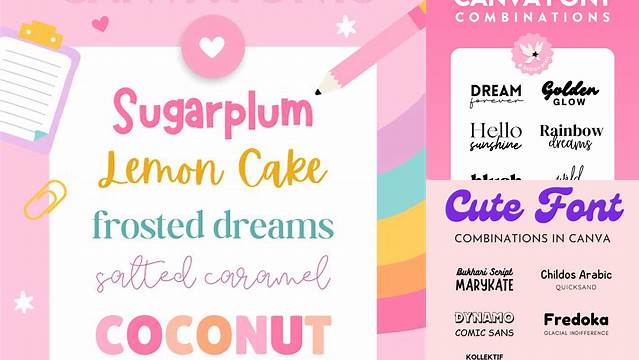
Cute Script Fonts On Canva: A Designer's Guide
Hey guys! Are you looking to add a touch of charm and personality to your designs? Well, you've come to the right place! We're diving deep into the world of cute script fonts available on Canva. Canva is a fantastic platform for all your design needs, whether you're creating social media graphics, presentations, or even invitations. And let's be honest, a well-chosen font can make all the difference. So, let's explore how you can elevate your designs with the most adorable script fonts Canva has to offer. We’ll cover everything from identifying the key characteristics of cute script fonts to providing practical examples and tips on how to use them effectively. Get ready to transform your projects from bland to brilliant with these delightful typefaces!
1. What Makes a Font "Cute"?
So, what exactly makes a font "cute"? It’s a bit subjective, but there are some common characteristics we can look for. Think about the fonts that make you smile. Often, they have rounded edges, playful loops, and a generally whimsical feel. A cute font often evokes feelings of warmth, friendliness, and approachability. Think about the font’s overall aesthetic. Does it have a handmade feel? Are the lines delicate and flowing? Does it have any unique quirks or embellishments? These are all factors that contribute to a font’s "cuteness" factor. Fonts with a slight bounce or playful slant can also be perceived as cute. It’s about creating a sense of fun and lightheartedness in your design. Consider the emotional impact you want to achieve. If you're aiming for a design that feels welcoming and cheerful, a cute font can be an excellent choice. Ultimately, the "cuteness" of a font is in the eye of the beholder, but understanding these key characteristics will help you choose fonts that align with your vision and brand.
2. Top 10 Cute Script Fonts on Canva
Canva offers a treasure trove of fonts, but narrowing down the cutest script options can be a challenge. So, let's dive into our top 10 picks! Each of these fonts brings a unique flavor of cuteness to the table, suitable for various design styles and projects. Here’s a sneak peek: Starting off, we have fonts with playful, rounded letterforms that exude a childlike wonder. Then there are the elegant scripts that combine cuteness with a touch of sophistication. And let's not forget the whimsical hand-lettered styles that add a personal touch to your designs. We'll discuss what makes each font special, highlighting its best use cases and how it can enhance your overall design aesthetic. We will also delve into how these fonts pair with other fonts in Canva's library, ensuring your designs look cohesive and professional. So, grab your virtual notepad, and let's embark on this cute font journey together!
3. Free vs. Premium Cute Script Fonts on Canva
One of the big questions when designing on Canva is whether to go for free fonts or invest in premium options. Canva offers a fantastic selection of both, and when it comes to cute script fonts, there's plenty to explore. Free fonts are a great starting point, especially if you're on a budget or just starting out with design. They provide a wide range of styles to experiment with and can be perfect for personal projects or smaller-scale designs. However, premium fonts often offer a higher level of polish and uniqueness. They may have more detailed letterforms, ligatures, and stylistic alternates, giving your designs a more professional edge. Investing in premium fonts can also ensure that you have access to fonts that are less commonly used, helping your designs stand out from the crowd. We'll compare the pros and cons of both free and premium cute script fonts, helping you make an informed decision based on your needs and budget.
4. How to Pair Cute Script Fonts with Other Fonts
Using a cute script font is just the first step – knowing how to pair it with other fonts is crucial for a polished design. The goal is to create a visual hierarchy and balance, ensuring your text is both legible and aesthetically pleasing. Think about contrast. If your script font is flowing and delicate, try pairing it with a clean, sans-serif font for headings or body text. This contrast creates visual interest and helps the script font stand out. Another tip is to consider the mood you're trying to convey. A playful script might pair well with a bold, geometric sans-serif for a fun, modern feel, while a more elegant script could be complemented by a classic serif font for a sophisticated look. We'll explore various font pairings, providing examples and tips on how to achieve harmonious typography in your Canva designs. Mastering font pairing is essential for creating visually appealing and effective designs, so let's unlock the secrets to successful font combinations.
5. Using Cute Script Fonts for Logos
Logos are the face of a brand, and choosing the right font is paramount. Cute script fonts can be a fantastic choice for logos that aim to convey friendliness, warmth, or a personal touch. Imagine a logo for a children's boutique or a handmade goods store – a cute script font can perfectly capture the brand's essence. However, there are some important considerations. Legibility is key, especially in smaller sizes. A highly decorative or intricate script might look beautiful in large headings but become difficult to read in a logo. Scalability is another factor. Your logo needs to look good on everything from business cards to billboards, so choose a font that maintains its clarity and impact at various sizes. We'll examine examples of successful logos that use cute script fonts and provide guidance on how to select and adapt a script font for your logo design. Creating a memorable and effective logo requires careful font selection, and we'll equip you with the knowledge to make the right choice.
6. Designing Invitations with Cute Script Fonts
When it comes to invitations, cute script fonts are a go-to choice for adding a touch of elegance and personality. Whether you're designing invitations for a wedding, a baby shower, or a birthday party, a well-chosen script font can set the tone for the entire event. Think about the occasion. A whimsical, playful script might be perfect for a children's party, while a more refined script would suit a formal event like a wedding. Consider the readability. While cute scripts are beautiful, ensure the text is easy to read, especially for important details like dates and times. Use a complementary font for the main body text to ensure clarity and visual balance. We'll explore various invitation design ideas using cute script fonts, providing tips on layout, color schemes, and typography. Designing invitations is an opportunity to express your creativity and style, and we'll help you create invitations that leave a lasting impression.
7. Social Media Graphics: Cute Script Fonts for Engagement
In the fast-paced world of social media, grabbing attention is crucial. Cute script fonts can be a powerful tool for creating engaging graphics that stand out from the crowd. They add a personal and approachable feel to your posts, making your content more relatable. However, it's important to use them strategically. Overusing script fonts can make your graphics look cluttered and difficult to read. Use them sparingly for headings, quotes, or accents, and pair them with a clear, legible font for the main body text. Consider your target audience and the message you want to convey. A playful script might be perfect for a brand targeting young women, while a more sophisticated script could appeal to a professional audience. We'll explore how to use cute script fonts effectively in social media graphics, providing examples and tips on creating visually appealing and shareable content. Social media is a visual medium, and we'll help you make your graphics shine with the right font choices.
8. Website Design: Adding Personality with Cute Script Fonts
Your website is your online storefront, and the fonts you choose play a significant role in shaping your brand's identity. Cute script fonts can add personality and warmth to your website, making it more inviting and memorable. However, it's essential to use them judiciously. Readability is paramount on the web, so avoid using script fonts for large blocks of text. Instead, use them for headings, logos, or call-to-action buttons to add a touch of flair. Consider your brand's overall aesthetic. If you're aiming for a modern, minimalist design, a subtle script font can add a touch of elegance without overwhelming the clean lines. We'll explore how to incorporate cute script fonts into your website design, providing examples and tips on creating a visually appealing and user-friendly online presence. Your website is an extension of your brand, and we'll help you make a lasting impression with the right font choices.
9. Cute Script Fonts for Branding: Dos and Don'ts
Branding is all about creating a consistent and recognizable identity, and fonts play a crucial role in this process. Cute script fonts can be a fantastic choice for brands that want to convey friendliness, creativity, or a personal touch. However, there are some important dos and don'ts to keep in mind. Do consider your target audience and brand values. A cute script might be perfect for a bakery or a children's clothing store but might not be suitable for a law firm or a financial institution. Don't overuse script fonts. They can be beautiful, but too much can make your brand look unprofessional or cluttered. Do ensure readability, especially in smaller sizes. A script font that looks great in a large heading might become illegible on a business card. We'll delve into the dos and don'ts of using cute script fonts for branding, providing guidance on creating a cohesive and effective brand identity. Your brand is your reputation, and we'll help you build a strong and memorable one with the right font choices.
10. Designing Print Materials with Cute Script Fonts
From business cards to brochures, print materials are a tangible representation of your brand. Cute script fonts can add a touch of personality and elegance to your printed designs, making them more memorable and engaging. However, there are some specific considerations for print design. Resolution is crucial. Ensure your fonts are high-resolution to avoid pixelation or blurriness when printed. White space is also important. Don't overcrowd your design with text; leave plenty of breathing room to make it visually appealing. We'll explore how to use cute script fonts effectively in print materials, providing tips on layout, color schemes, and typography for various print formats. Print design is a tactile experience, and we'll help you create materials that feel as good as they look.
11. The Psychology of Cute Script Fonts
Fonts aren't just visual elements; they also evoke emotions and associations. Cute script fonts, in particular, often convey feelings of warmth, friendliness, and playfulness. They can make your designs feel more approachable and personal, which is why they're often used in branding for businesses targeting families, children, or creative individuals. The psychology of fonts is a fascinating field, and understanding the emotional impact of different typefaces can significantly enhance your design work. A cute script font can create a sense of nostalgia, reminding viewers of handwritten letters or childhood memories. It can also convey a sense of authenticity and handcrafted quality, making your brand feel more genuine and trustworthy. We'll delve deeper into the psychology of cute script fonts, exploring how they influence perception and how you can use them strategically to achieve your design goals. Knowing the emotional impact of fonts is a powerful tool, and we'll help you harness it to create designs that resonate with your audience.
12. Combining Cute Script Fonts with Images
Images and typography work together to create a cohesive visual message. When using cute script fonts, it's important to choose images that complement the font's style and mood. For instance, a whimsical script font might pair well with soft, pastel-colored images or illustrations. An elegant script font, on the other hand, could be complemented by sophisticated photographs or minimalist graphics. Think about the overall tone you want to create. If you're aiming for a lighthearted and playful design, choose images that reflect that mood. If you're going for a more refined look, opt for images that are clean, crisp, and sophisticated. We'll explore how to combine cute script fonts with various types of images, providing examples and tips on creating visually harmonious designs. The interplay between images and typography is a key element of effective design, and we'll help you master the art of visual storytelling.
13. Cute Script Fonts for Seasonal Designs
Seasonal designs offer a wonderful opportunity to play with different fonts and styles. Cute script fonts can add a festive touch to your designs, making them perfect for holiday greetings, seasonal promotions, and special events. For instance, a whimsical script font might be ideal for Christmas cards or Halloween invitations. A more elegant script font could be used for Valentine's Day promotions or New Year's Eve announcements. Think about the mood of each season. Spring designs might benefit from light, airy script fonts that evoke feelings of freshness and renewal. Autumn designs could incorporate warmer, more rustic script fonts that capture the cozy atmosphere of the season. We'll explore how to use cute script fonts in seasonal designs, providing examples and tips on creating visually appealing and timely graphics. Seasonal designs are a great way to showcase your creativity, and we'll help you make the most of every season with the right font choices.
14. Creating a Cute and Professional Look with Script Fonts
Balancing cuteness with professionalism can be a challenge, but it's definitely achievable with the right script font. The key is to choose a font that's both visually appealing and legible, and to use it strategically in your design. Avoid overly decorative or intricate scripts that might be difficult to read, especially in smaller sizes. Opt for script fonts that have a clean, modern feel, and pair them with simple, sans-serif fonts for the main body text. Consider the context in which the font will be used. A cute script font might be perfect for a website or social media graphics, but it might not be appropriate for a formal document or a business presentation. We'll explore how to create a cute and professional look with script fonts, providing examples and tips on achieving the right balance. Combining cuteness with professionalism is about finding the sweet spot, and we'll help you master this delicate art.
15. Mastering the Art of Kerning with Cute Script Fonts
Kerning, the adjustment of spacing between individual letters, is a crucial aspect of typography. It's especially important when working with script fonts, as the flowing, connected letterforms can sometimes create awkward gaps or overlaps. Mastering the art of kerning can significantly improve the readability and visual appeal of your designs. Pay close attention to the spaces between letters, and adjust them manually if necessary to achieve a balanced and harmonious look. Some design software, including Canva, offers kerning tools that allow you to fine-tune the spacing between letters. Experiment with different kerning settings to see what works best for your chosen font and design. We'll explore the art of kerning with cute script fonts, providing examples and tips on achieving perfect letter spacing. Kerning is a subtle but powerful technique that can elevate your typography from good to great.
16. Understanding Font Licensing for Cute Script Fonts on Canva
Font licensing is an important aspect of design that's often overlooked. When using fonts in your designs, it's crucial to understand the terms of the license and ensure that you're using the font in compliance with those terms. Canva offers a variety of fonts, each with its own licensing agreement. Some fonts are free for both personal and commercial use, while others may have restrictions on how they can be used. It's essential to check the licensing information for each font before using it in your designs, especially if you plan to use the designs for commercial purposes. We'll explore font licensing for cute script fonts on Canva, providing guidance on understanding and complying with licensing agreements. Font licensing can be a complex topic, but we'll break it down and make it easy to understand.
17. The History of Script Fonts: A Brief Overview
Script fonts have a rich and fascinating history, dating back to the early days of handwriting and calligraphy. Understanding the history of script fonts can give you a deeper appreciation for their beauty and versatility. Script fonts originated from the flowing, cursive styles of handwriting that were popular in past centuries. They were often used for formal documents, letters, and invitations, conveying a sense of elegance and sophistication. Over time, script fonts evolved into a wide variety of styles, from traditional calligraphy-inspired scripts to modern, playful scripts. Each style has its own unique character and personality. We'll provide a brief overview of the history of script fonts, tracing their evolution and highlighting key milestones in their development. Knowing the history of script fonts can inform your design choices and help you use them effectively.
18. Future Trends in Cute Script Font Design
Font design is a constantly evolving field, with new trends emerging all the time. Staying up-to-date on the latest trends in cute script font design can help you create fresh, modern designs that stand out. We're seeing a growing trend towards hand-drawn, organic-looking script fonts that have a personal, authentic feel. These fonts often incorporate imperfections and irregularities that add to their charm. Another trend is the use of bold, expressive script fonts that make a strong visual statement. These fonts are perfect for headlines, logos, and other design elements that need to grab attention. We'll explore future trends in cute script font design, providing insights into what's on the horizon and how you can incorporate these trends into your work. Staying ahead of the curve is essential in the design world, and we'll help you do just that.
19. How to Create Your Own Cute Script Font
For designers who want to take their creativity to the next level, creating their own cute script font can be a rewarding experience. It allows you to express your unique style and create a font that's perfectly tailored to your needs. Creating a font is a complex process, but it's also incredibly satisfying. It involves designing each letterform, number, and punctuation mark, and then assembling them into a functional font file. There are various software tools available that can help you create your own font, including FontLab Studio, Glyphs, and Calligraphr. We'll provide an overview of the process of creating your own cute script font, highlighting key steps and resources that can help you get started. Creating your own font is a challenging but rewarding endeavor that can set your designs apart.
20. The Impact of Cute Script Fonts on Brand Perception
Fonts play a significant role in shaping brand perception. Cute script fonts, in particular, can have a powerful impact on how your brand is perceived by your target audience. A cute script font can convey a sense of friendliness, warmth, and playfulness, making your brand feel more approachable and relatable. It can also create a sense of nostalgia or handcrafted quality, making your brand feel more genuine and trustworthy. However, it's important to use cute script fonts strategically, as they may not be appropriate for all brands. A law firm or a financial institution, for instance, might prefer a more formal, professional font. We'll explore the impact of cute script fonts on brand perception, providing insights into how they can influence customer attitudes and behaviors. Understanding the psychology of fonts is crucial for effective branding, and we'll help you make informed font choices.
21. Cute Script Fonts vs. Other Font Styles
Cute script fonts are just one of many font styles available to designers. Understanding the differences between script fonts and other font styles, such as serif, sans-serif, and display fonts, can help you make informed font choices for your designs. Serif fonts have small decorative strokes at the ends of the letters, giving them a classic, traditional feel. Sans-serif fonts, on the other hand, have clean, simple lines, making them look modern and minimalist. Display fonts are designed for headlines and other large-format text, and they often have unique, eye-catching designs. We'll compare cute script fonts to other font styles, highlighting their strengths and weaknesses and providing guidance on when to use each style. Each font style has its own unique character and personality, and knowing the differences can help you create visually compelling designs.
22. Common Mistakes to Avoid When Using Cute Script Fonts
Using cute script fonts effectively requires careful attention to detail. There are several common mistakes that designers often make when working with script fonts, but avoiding these pitfalls can significantly improve your designs. One common mistake is overusing script fonts. While they can be beautiful, too much script font can make your design look cluttered and difficult to read. Another mistake is choosing a script font that's too decorative or intricate, making it illegible in smaller sizes. We'll explore common mistakes to avoid when using cute script fonts, providing practical tips on how to create visually appealing and effective designs. Learning from others' mistakes is a valuable way to improve your design skills.
23. Resources for Finding More Cute Script Fonts on Canva
Canva offers a vast library of fonts, but finding the perfect cute script font can sometimes feel like searching for a needle in a haystack. Fortunately, there are several resources that can help you narrow down your search and discover hidden gems. Canva's font filters allow you to sort fonts by style, weight, and other criteria, making it easier to find script fonts that match your needs. You can also browse Canva's font collections, which are curated sets of fonts that work well together. We'll provide a list of resources for finding more cute script fonts on Canva, helping you expand your font library and discover new favorites. The more fonts you have at your disposal, the more creative you can be with your designs.
24. Cute Script Fonts and Accessibility: Best Practices
Accessibility is an important consideration in design, ensuring that your designs are usable by people with disabilities. When using cute script fonts, it's essential to follow best practices for accessibility to ensure that your text is legible and understandable. Avoid using script fonts for large blocks of text, as they can be difficult for some people to read. Instead, use them sparingly for headlines or accents, and pair them with a clear, sans-serif font for the main body text. Ensure that there's sufficient contrast between the text and the background, and avoid using script fonts that are too thin or decorative. We'll explore best practices for using cute script fonts with accessibility in mind, helping you create designs that are inclusive and usable by everyone. Accessibility is a key element of ethical design, and we'll empower you to create designs that are accessible to all.
25. How to Use Cute Script Fonts in Presentations
Presentations are a powerful tool for communicating your ideas, and choosing the right fonts can make your slides more engaging and effective. Cute script fonts can add a touch of personality to your presentations, making them more memorable and relatable. However, it's important to use script fonts judiciously in presentations. Avoid using them for large blocks of text, as they can be difficult to read on a screen. Instead, use them sparingly for headings or key points, and pair them with a clear, sans-serif font for the main body text. Ensure that your font sizes are large enough to be easily read from a distance, and use consistent font styles throughout your presentation. We'll explore how to use cute script fonts effectively in presentations, providing tips on creating visually appealing and impactful slides. A well-designed presentation can make all the difference, and we'll help you create presentations that captivate your audience.
26. Cute Script Fonts for Marketing Materials
Marketing materials are designed to grab attention and communicate your brand's message effectively. Cute script fonts can be a valuable tool for creating marketing materials that stand out and resonate with your target audience. They can add a touch of personality and warmth to your designs, making your brand feel more approachable and relatable. However, it's important to choose a script font that aligns with your brand's values and target audience. A playful script font might be perfect for a children's clothing store, while a more elegant script font could be used for a luxury brand. We'll explore how to use cute script fonts effectively in marketing materials, providing examples and tips on creating visually compelling designs that drive results. Effective marketing materials are essential for building brand awareness and generating leads, and we'll help you create materials that make a lasting impression.
27. The Influence of Calligraphy on Cute Script Fonts
Calligraphy, the art of beautiful handwriting, has had a profound influence on the development of script fonts. Many cute script fonts draw inspiration from calligraphic styles, incorporating flowing lines, elegant curves, and intricate details. Understanding the connection between calligraphy and script fonts can enhance your appreciation for these typefaces and help you use them more effectively. Calligraphy techniques, such as varying the thickness of the strokes and creating flourishes and swashes, are often incorporated into script font designs. We'll explore the influence of calligraphy on cute script fonts, highlighting key calligraphic principles and how they translate into font design. Calligraphy is a timeless art form, and its influence on script fonts is evident in their beauty and elegance.
28. How to Test Your Cute Script Font Choices
Choosing the right font is a crucial part of the design process, and it's essential to test your font choices to ensure that they work effectively in your designs. Testing your font choices involves evaluating them in various contexts and scenarios to see how they perform. Create mockups of your designs using different fonts, and assess how each font looks and feels. Consider the legibility of the font in different sizes and formats, and evaluate how well it pairs with other fonts and design elements. We'll provide guidance on how to test your cute script font choices, offering practical tips and techniques for evaluating font performance. Testing your fonts is a critical step in the design process, and it can help you avoid costly mistakes.
29. The Emotional Connection to Cute Script Fonts
Fonts have the power to evoke emotions and create connections with viewers. Cute script fonts, in particular, often trigger feelings of warmth, nostalgia, and playfulness. They can make your designs feel more personal and relatable, which can be especially effective for brands that want to connect with their audience on an emotional level. Think about the emotions you want to evoke in your designs, and choose a font that aligns with those emotions. A cute script font might be perfect for a brand that wants to convey friendliness and approachability, while a more sophisticated font might be better suited for a brand that wants to project elegance and authority. We'll explore the emotional connection to cute script fonts, providing insights into how they influence perception and create emotional responses. Harnessing the power of emotion in design can help you create lasting connections with your audience.
30. Advanced Techniques for Using Cute Script Fonts on Canva
Once you've mastered the basics of using cute script fonts on Canva, you can explore advanced techniques to take your designs to the next level. These techniques involve manipulating fonts in creative ways to achieve unique visual effects. Experiment with font layering, adding shadows and outlines, and creating custom letterforms. Use Canva's text effects tools to add dimension and depth to your fonts, and explore different color combinations to create visually striking designs. We'll delve into advanced techniques for using cute script fonts on Canva, providing step-by-step instructions and inspiration for creating truly unique designs. Mastering advanced techniques can help you push the boundaries of your creativity and create designs that stand out from the crowd.